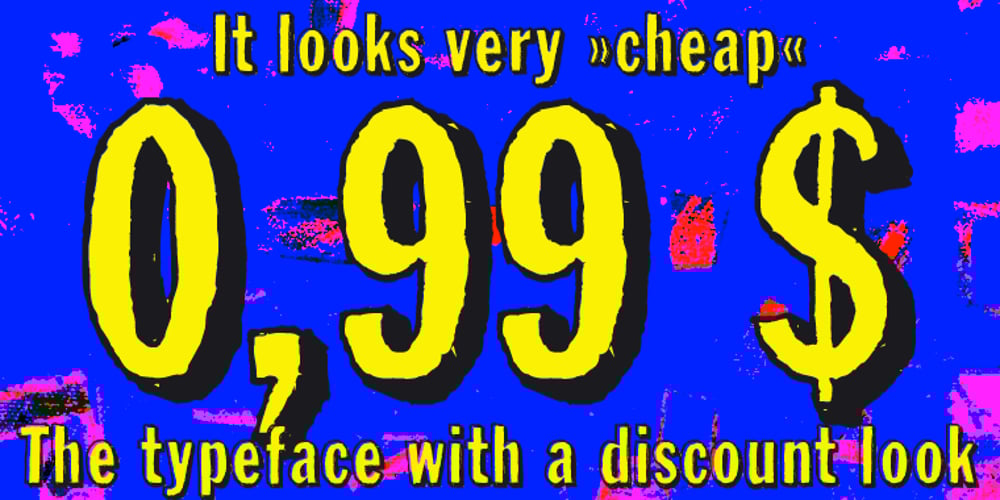
Franklin Hand Cond Shadow
Franklin Hand Cond Shadow font
Franklin Hand Cond Shadow Font Family was designed by Gert Wiescher and published by Wiescher Design. Franklin Hand Cond Shadow contains 2 styles and family package options. Franklin Gothic Condensed Shadow Hand is another one of the Franklin-Hand series. This one is very usable when one wants to signalize CHEAP!!!! The Franklin Cond Mask is an addition that lets you put colour into the font without having to fiddle around. Just clone the text you have written in the Franklin Hand Cond Shadow and then change it over to the mask version which will exactly fit into the underlying font. Now you can change the colour to your desire. Type-designer, Gert Wiescher